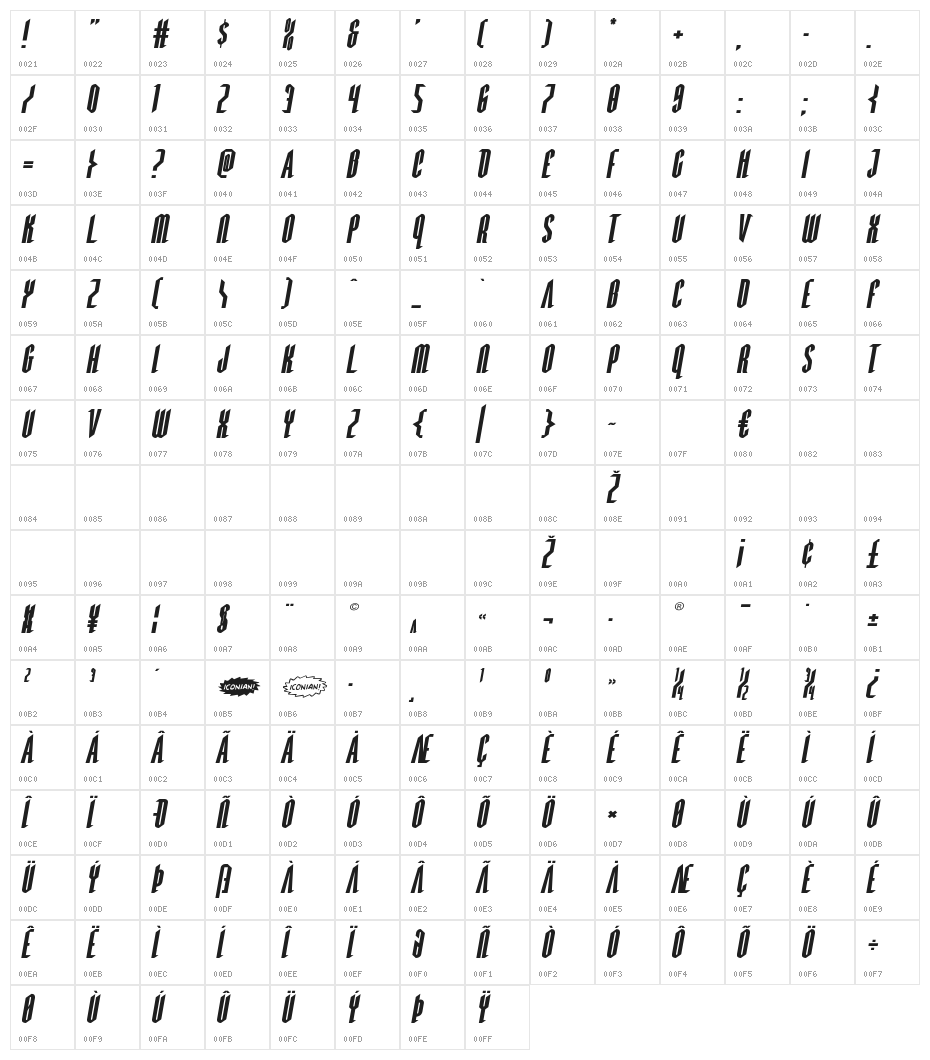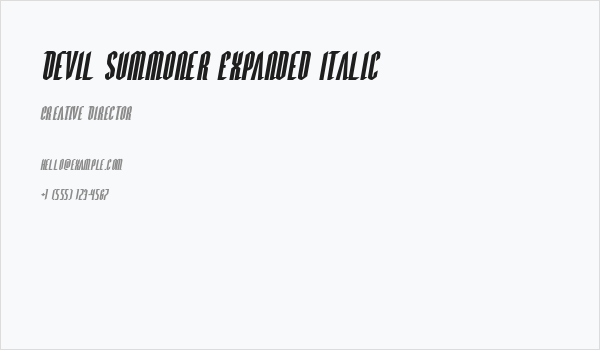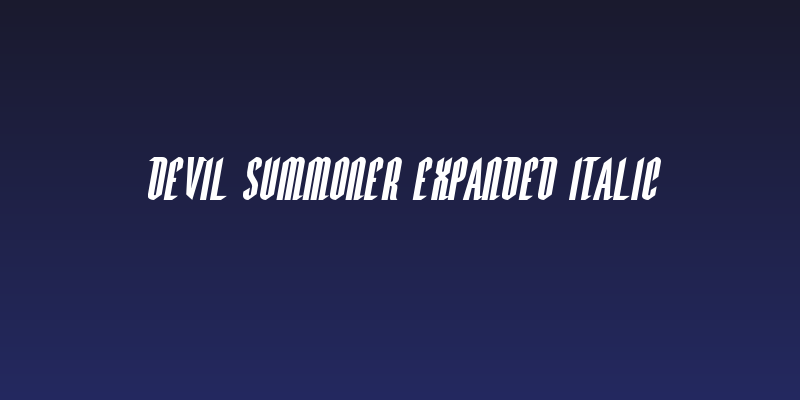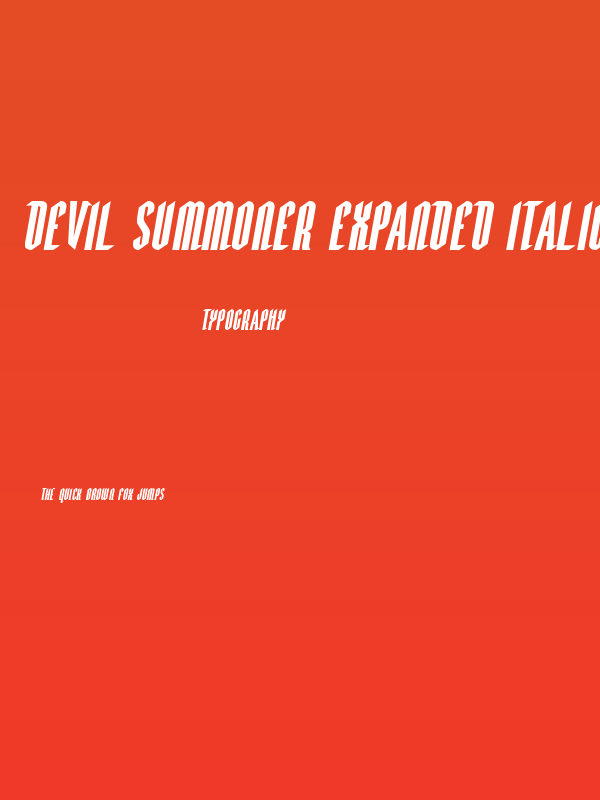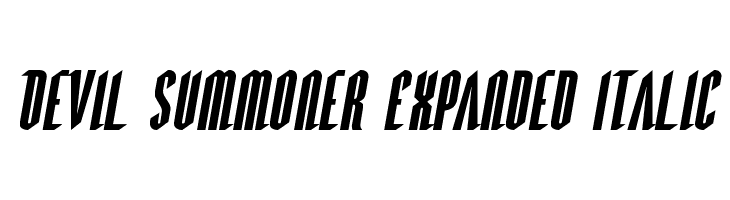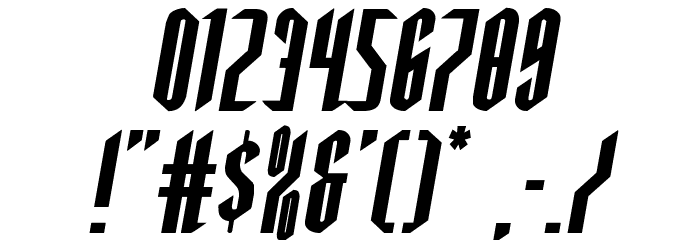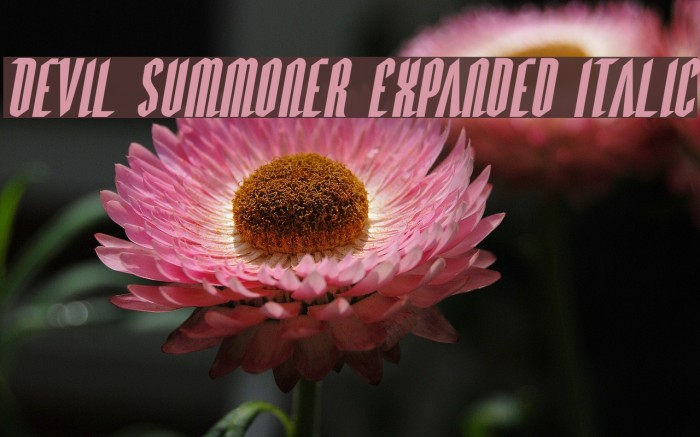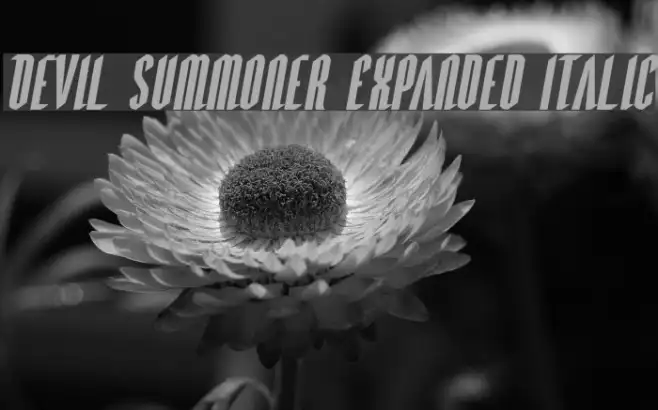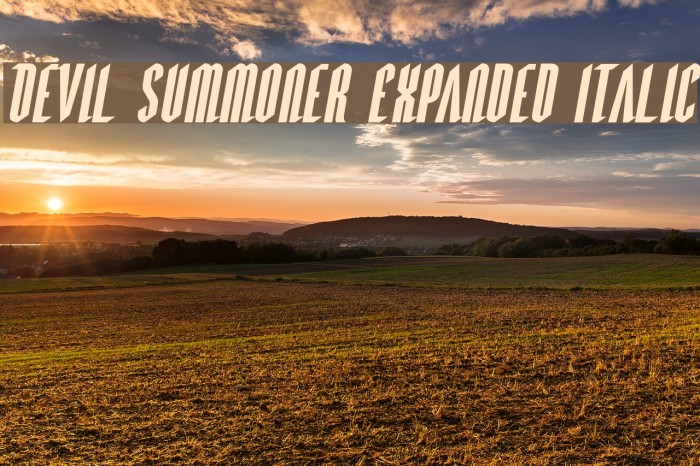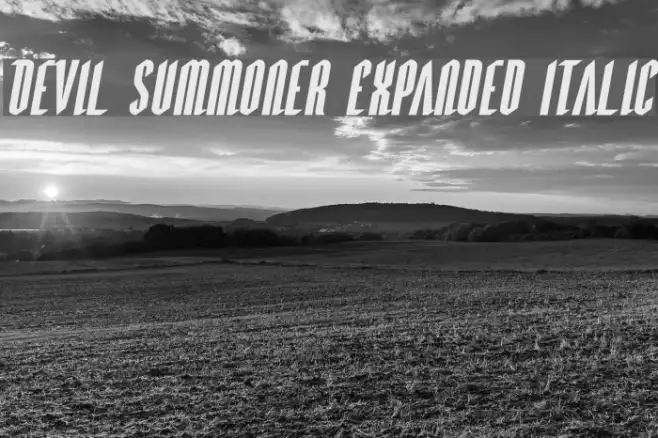
Devil Summoner Expanded Italic Font
Devil Summoner Expanded Italic Description
This font features a bold, italicized style with a distinct, angular design. The characters are sharply defined, with a strong emphasis on vertical strokes and a slight slant that adds dynamism and movement. The expanded width of the letters gives it a commanding presence, making it ideal for attention-grabbing headlines or titles. The font's unique style is both modern and edgy, with a touch of futuristic flair. It includes a full set of uppercase and lowercase letters, numbers, and a variety of special characters, ensuring versatility for various design needs.
DEVIL-SUMMONER-EXPANDED-ITALIC UPPERCASE
DEVIL-SUMMONER-EXPANDED-ITALIC LOWERCASE
DEVIL-SUMMONER-EXPANDED-ITALIC OTHER CHARS
| Overall Style | Modern, Edgy, Futuristic |
| Proposed Projects | Ideal for use in video game titles, movie posters, branding for tech companies, or any project requiring a bold, futuristic look. |